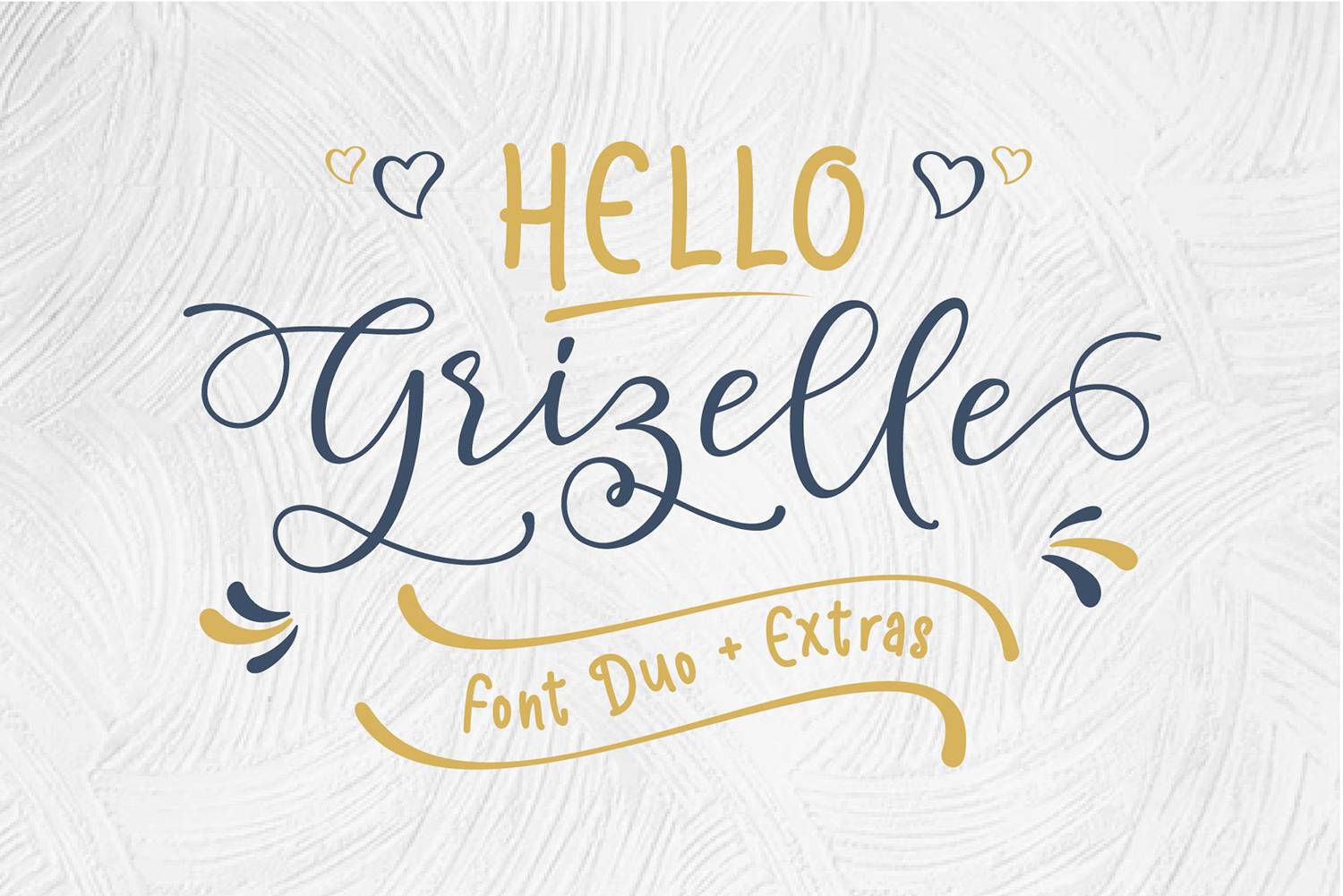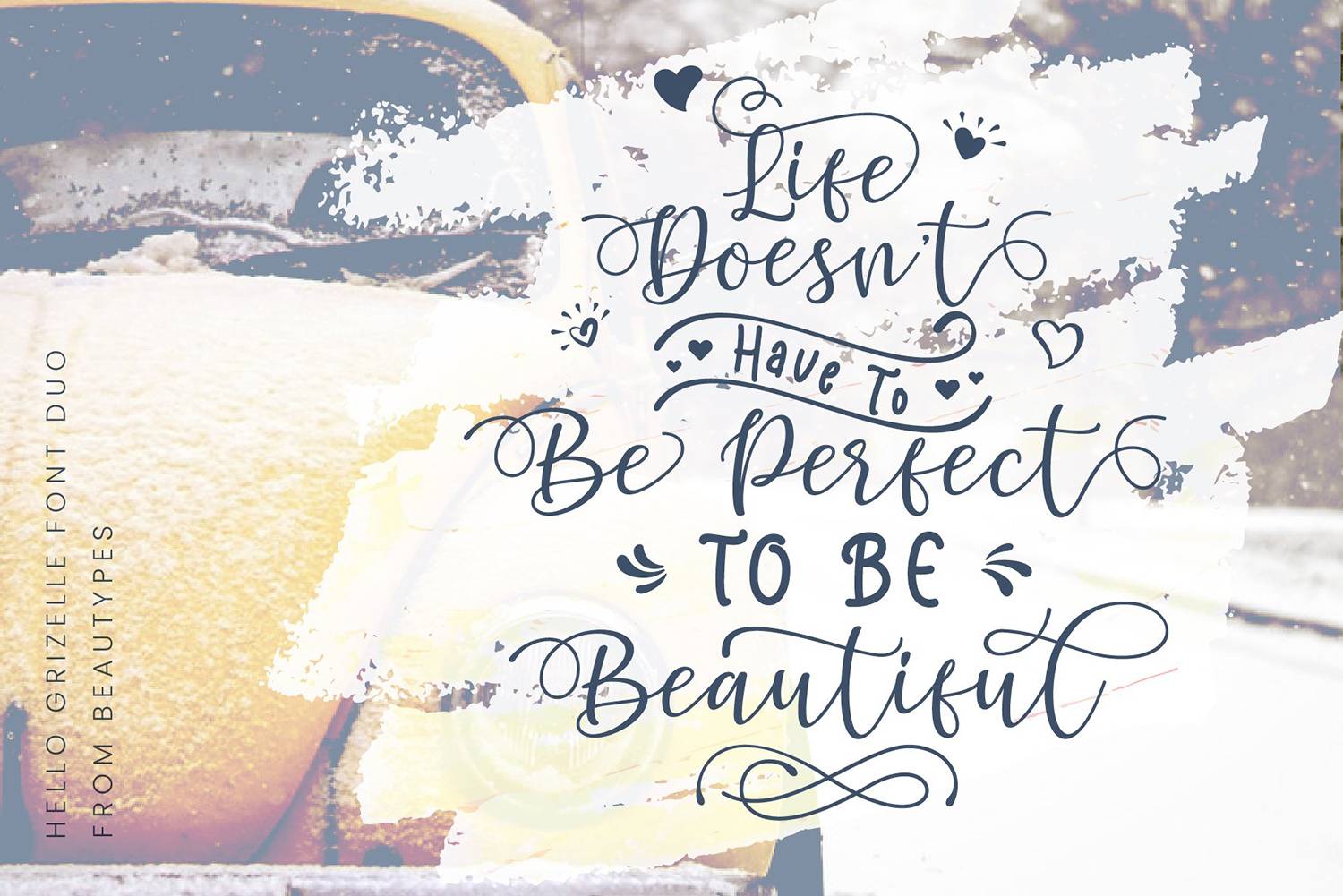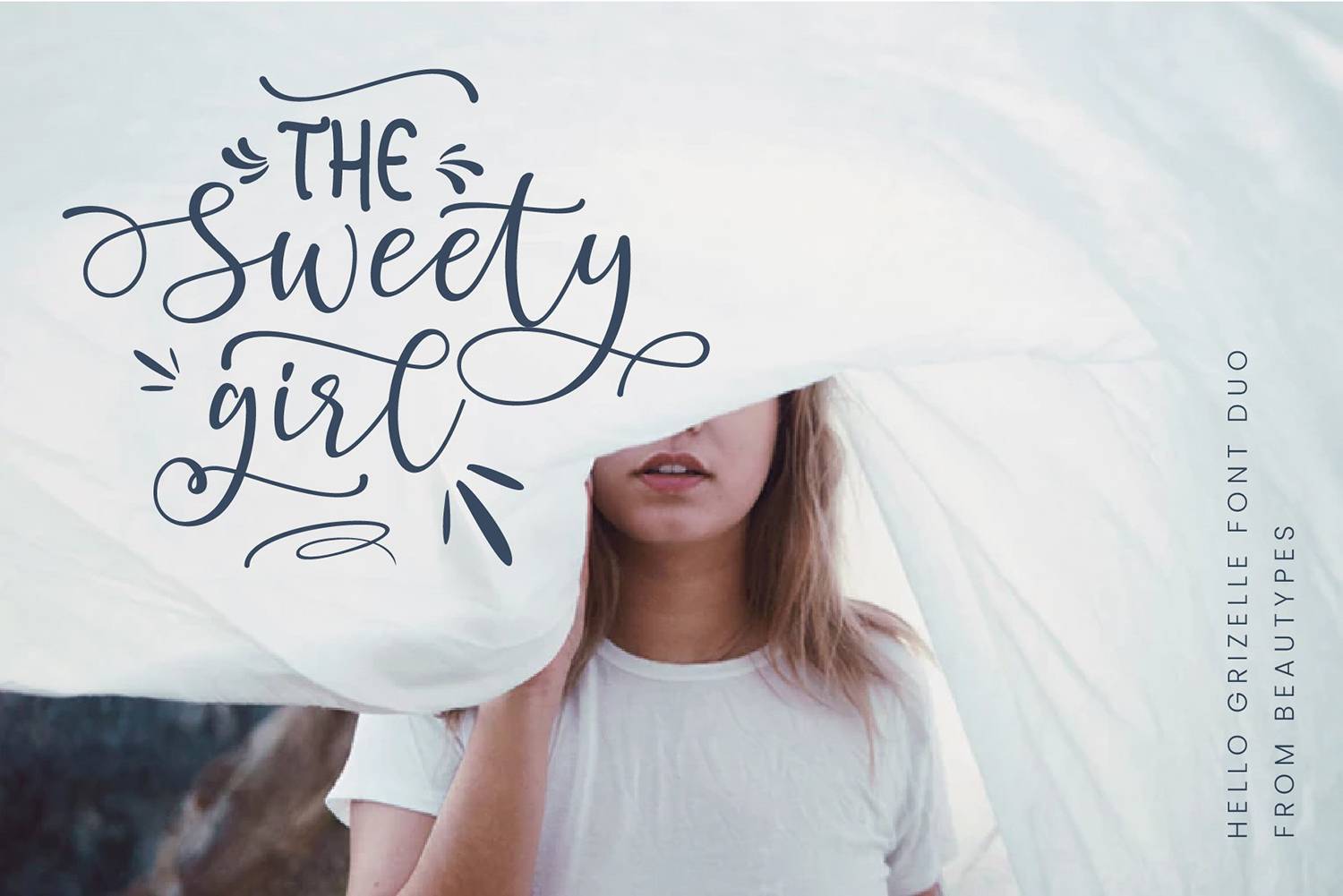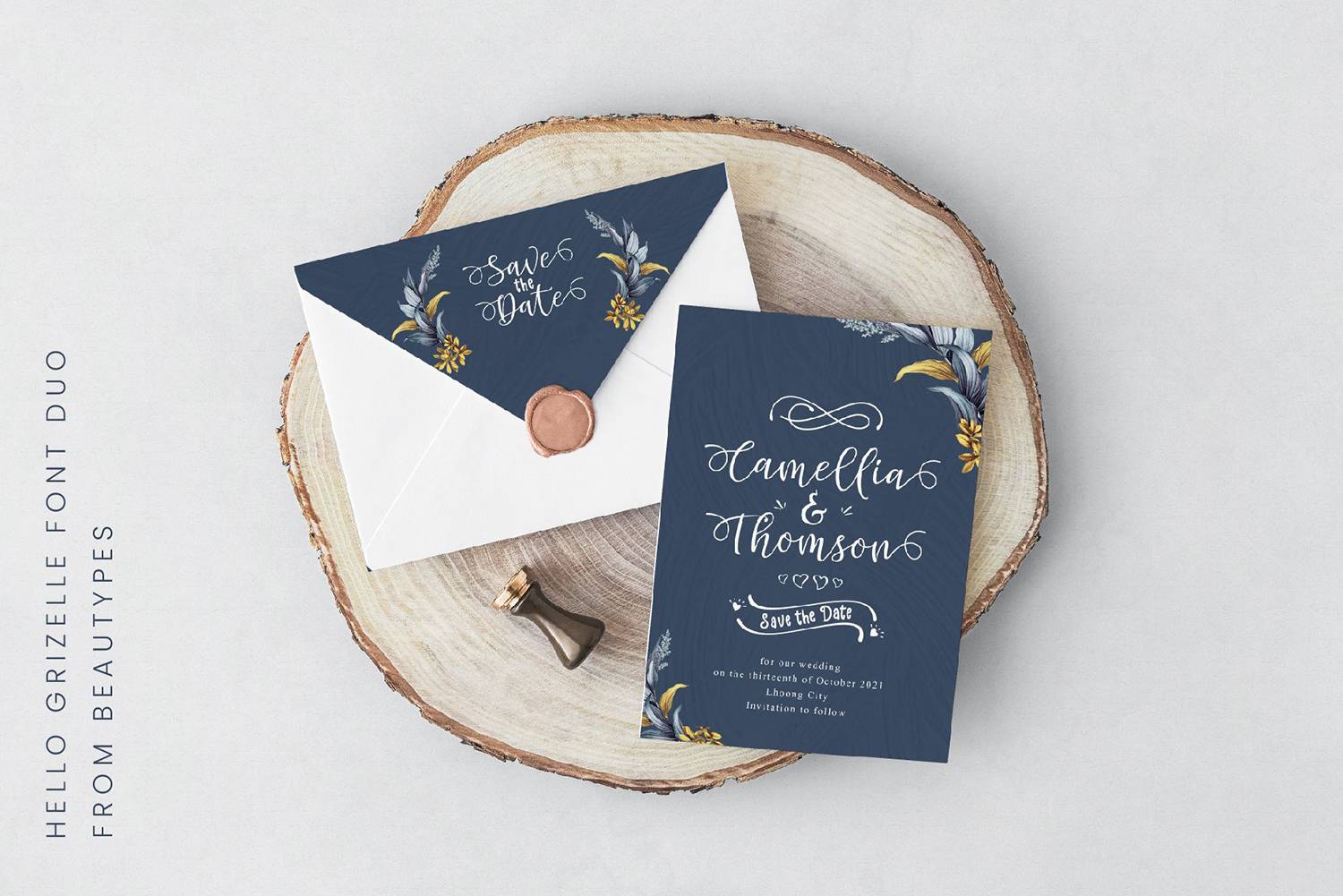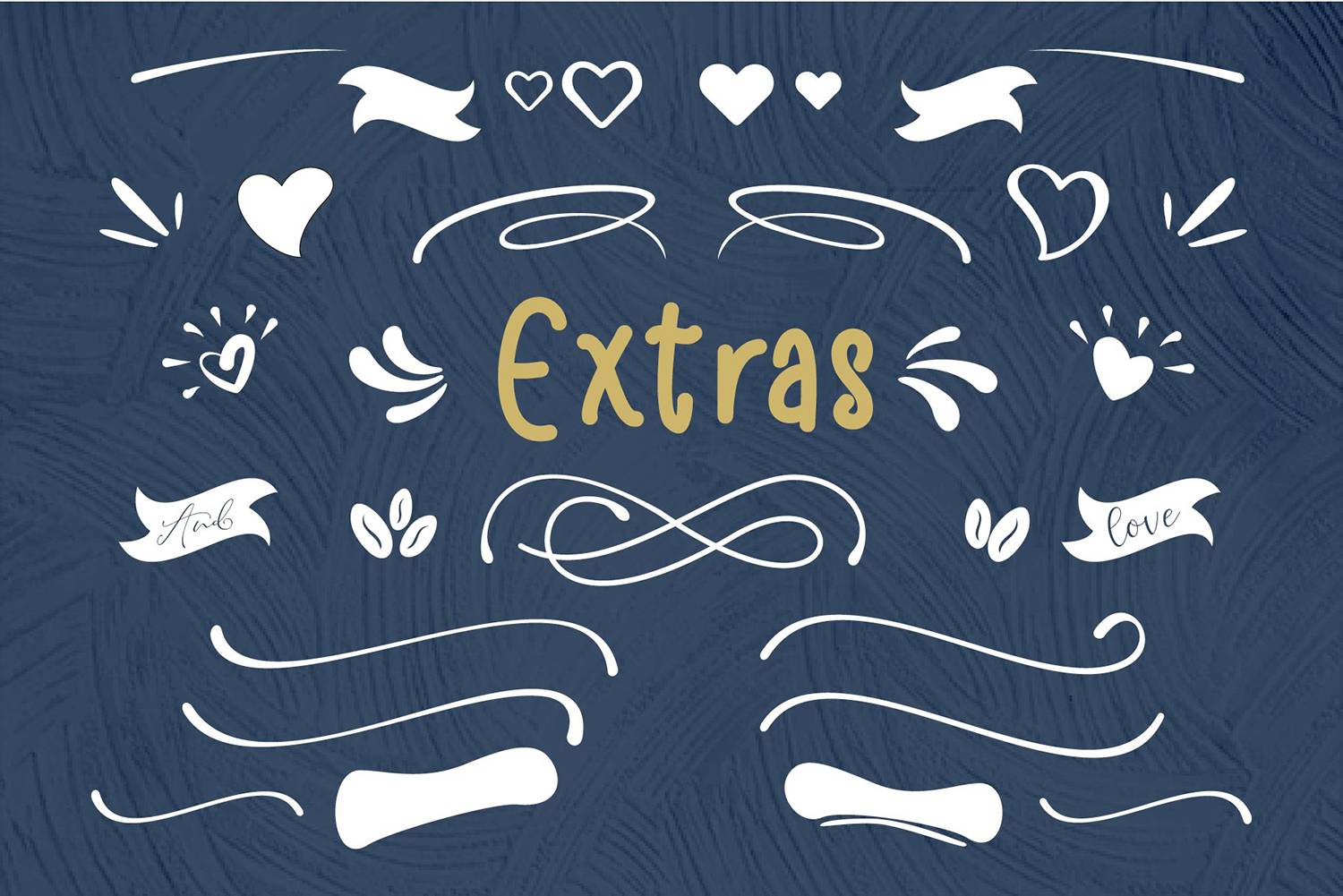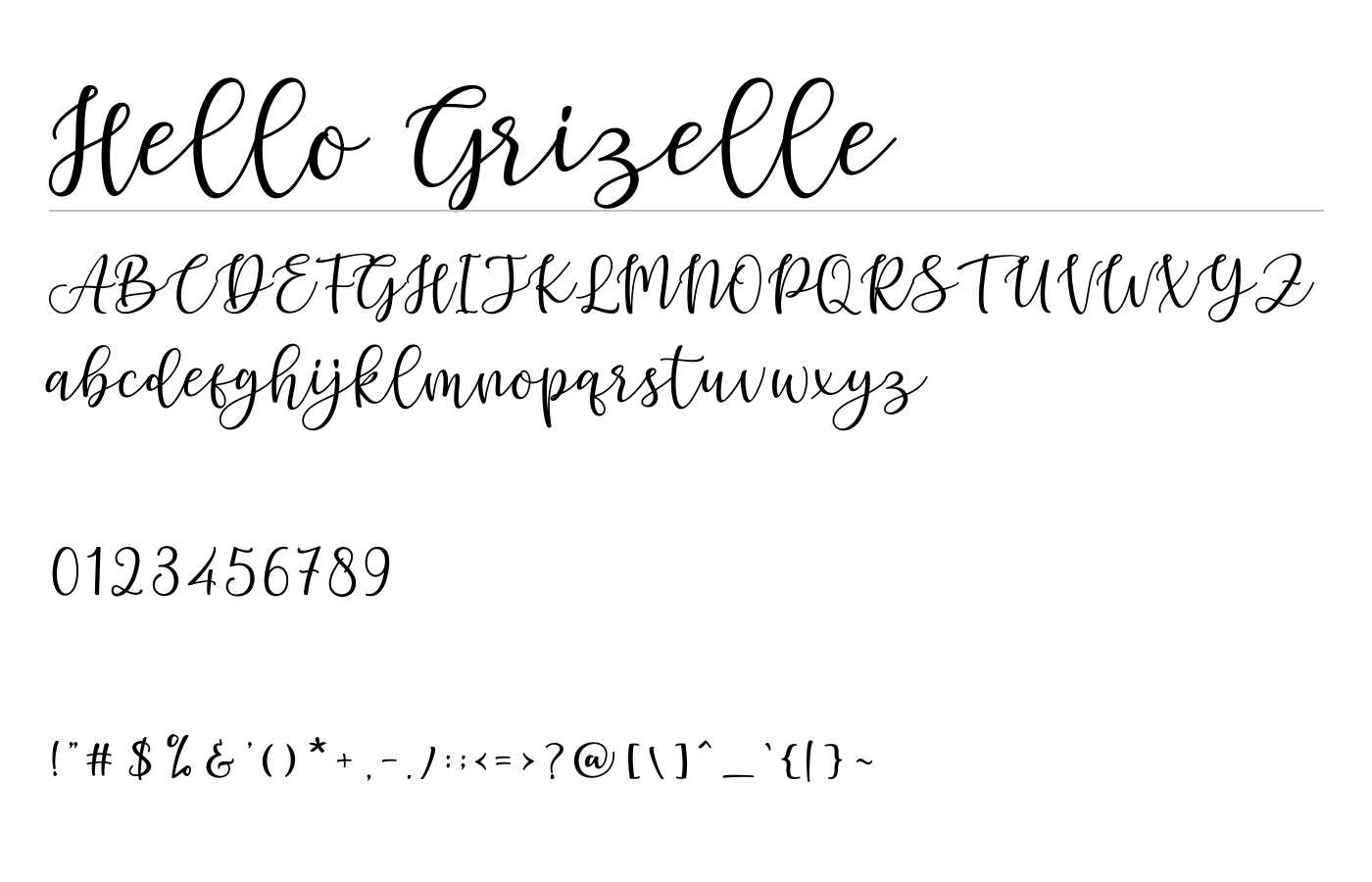
Hello Grizelle is a graceful and flowing script font characterized by its elegant handwritten style, featuring smooth, connected strokes with moderate contrast and a lively, organic feel. Its slender, slightly tall letterforms and delicate curves make it ideal for adding a personal, sophisticated touch to invitations, branding, and creative projects that require a warm yet refined appearance. This font works beautifully in decorative headlines and logos where a charming and approachable elegance is desired.
Hello Grizelle Font
About Hello Grizelle Font
| Font family | Hello Grizelle Font |
| Release date | 2019-04-22 |
| Designer | Rizaldi Wandani |